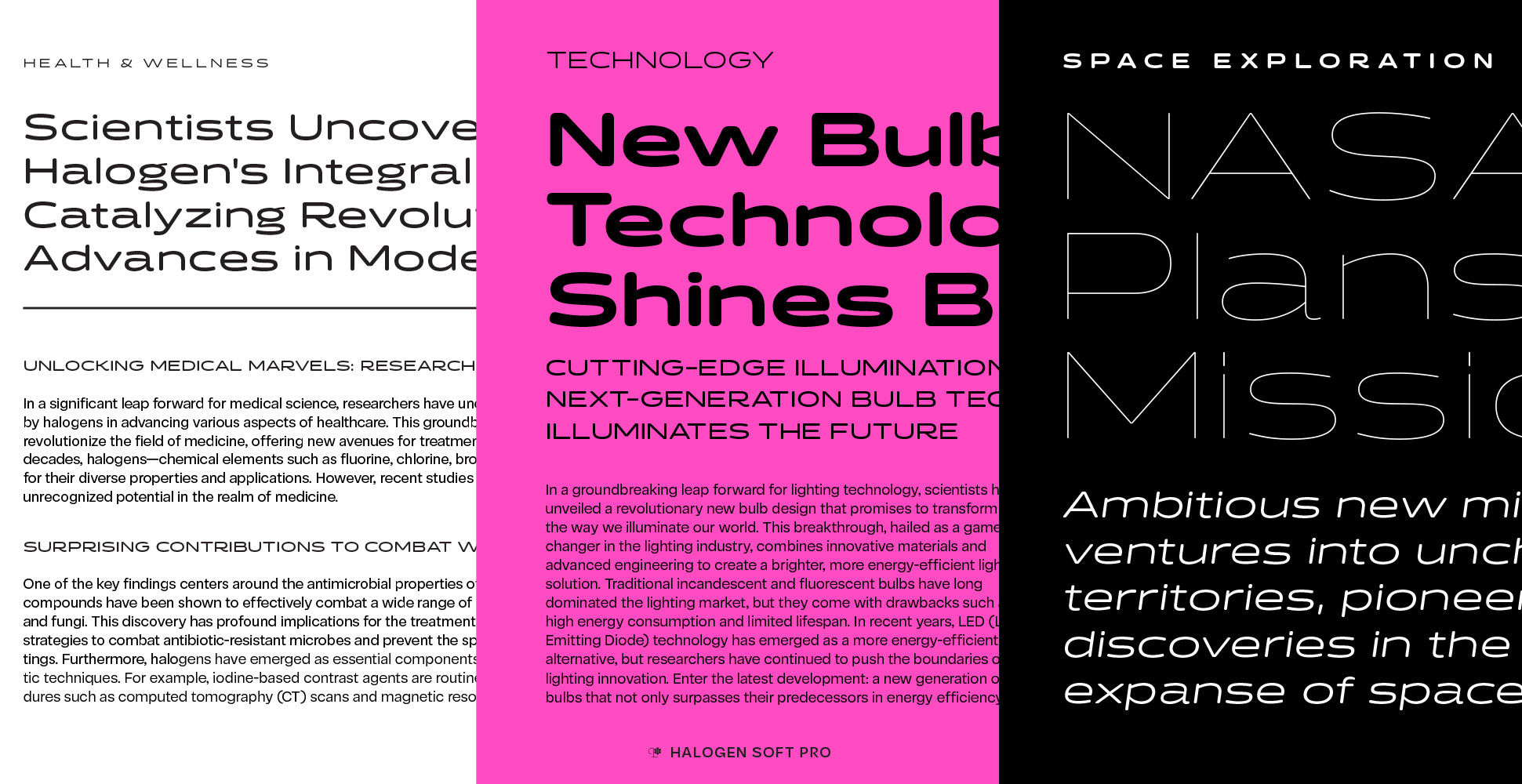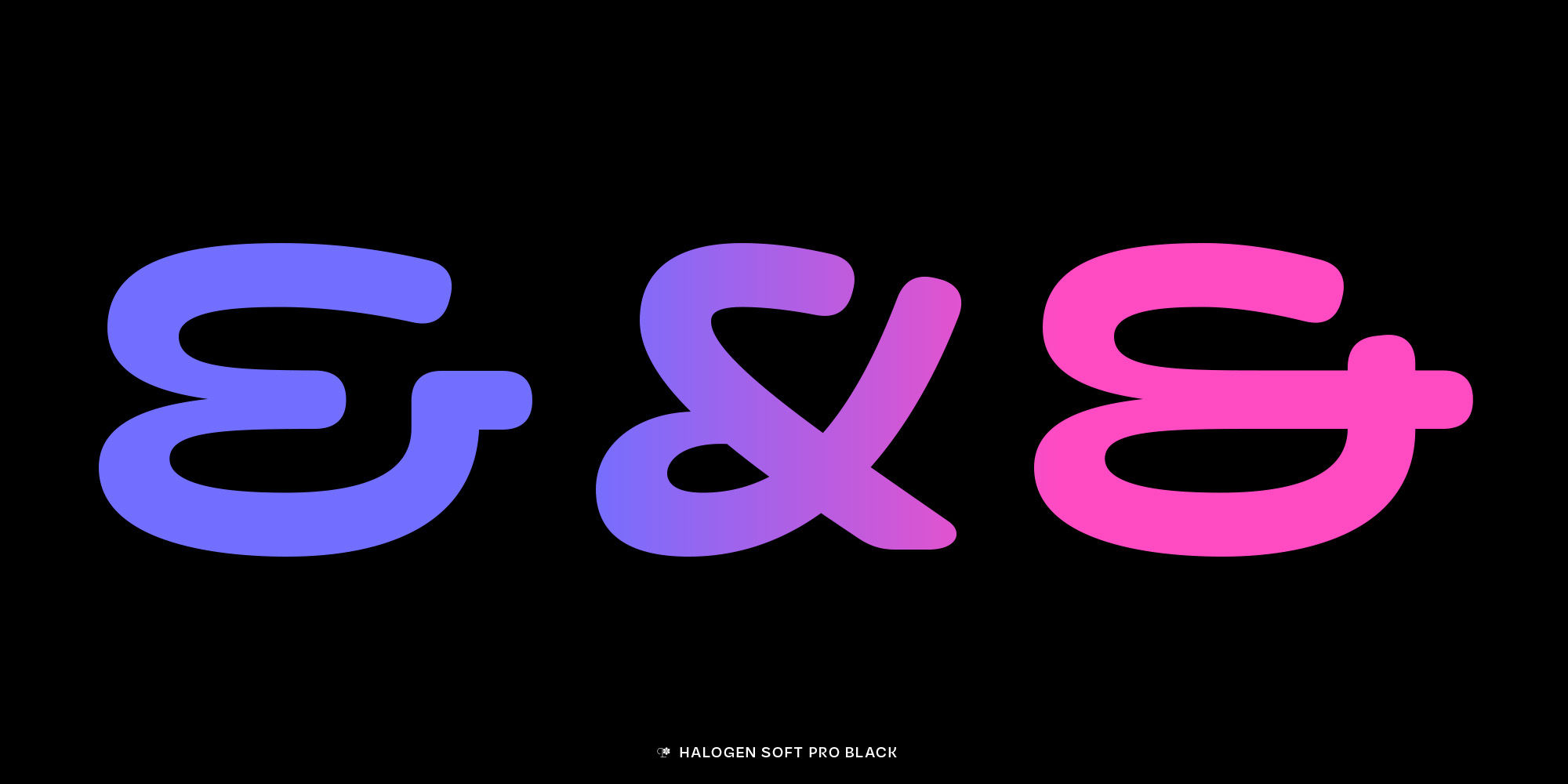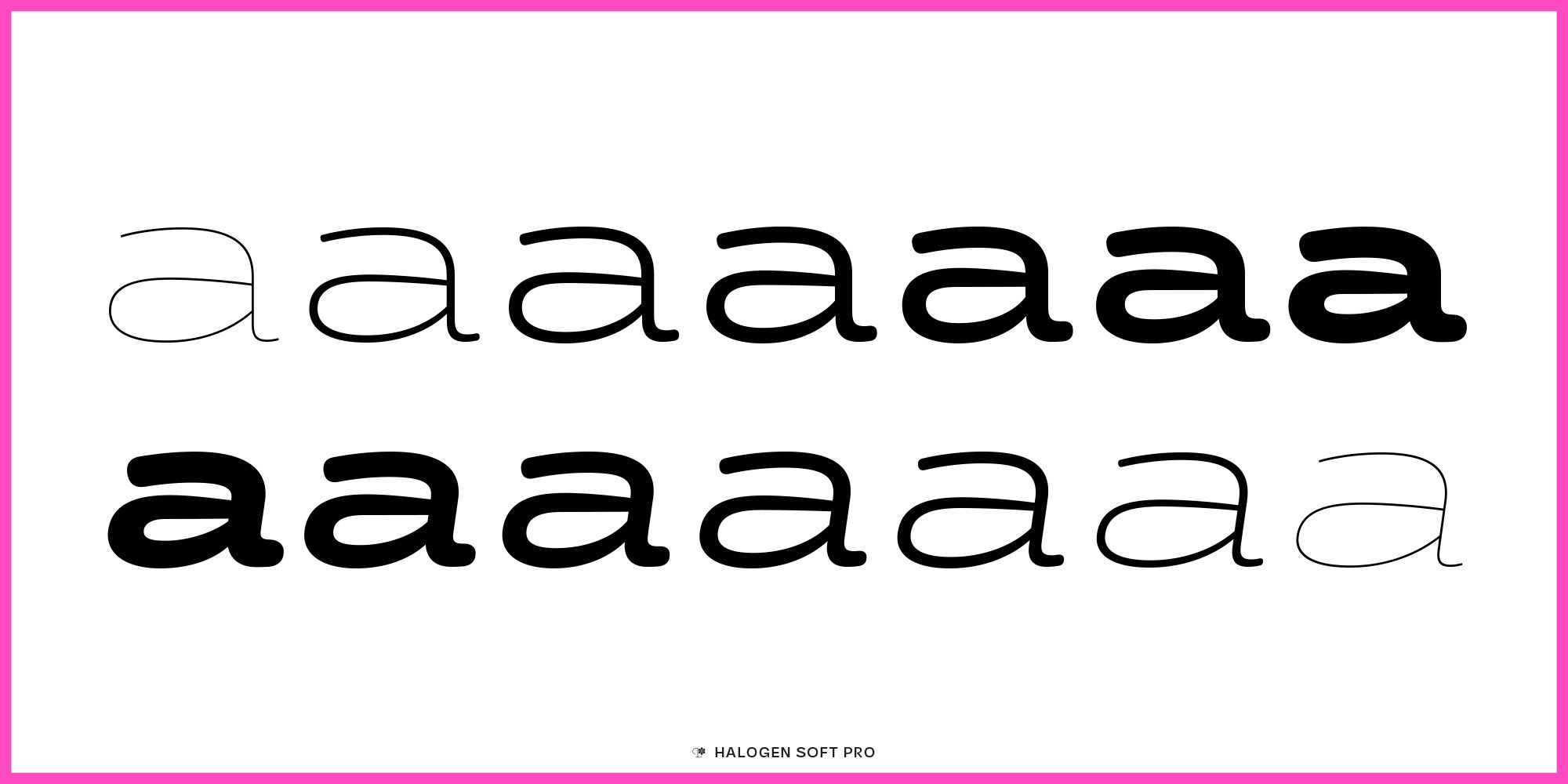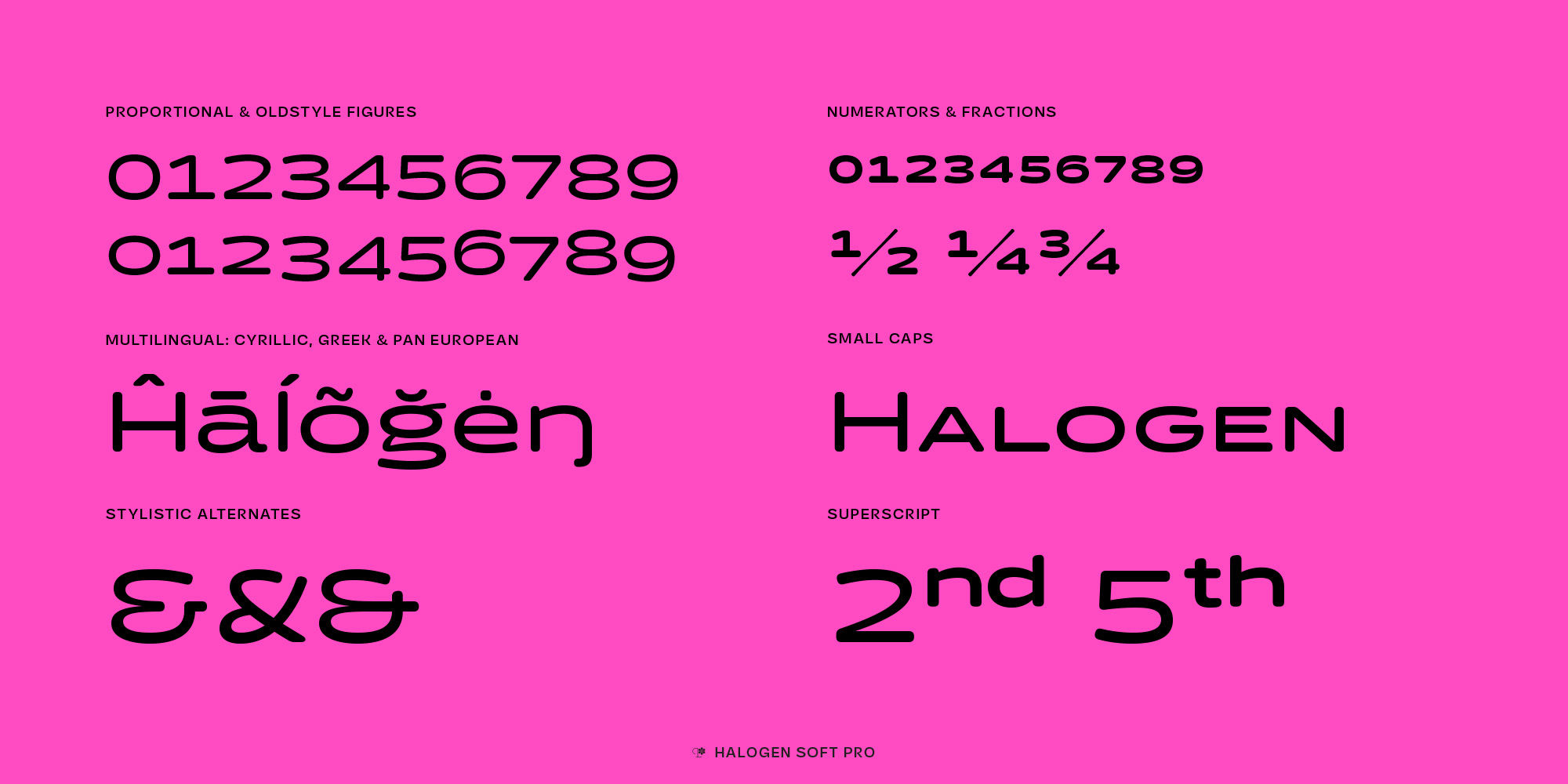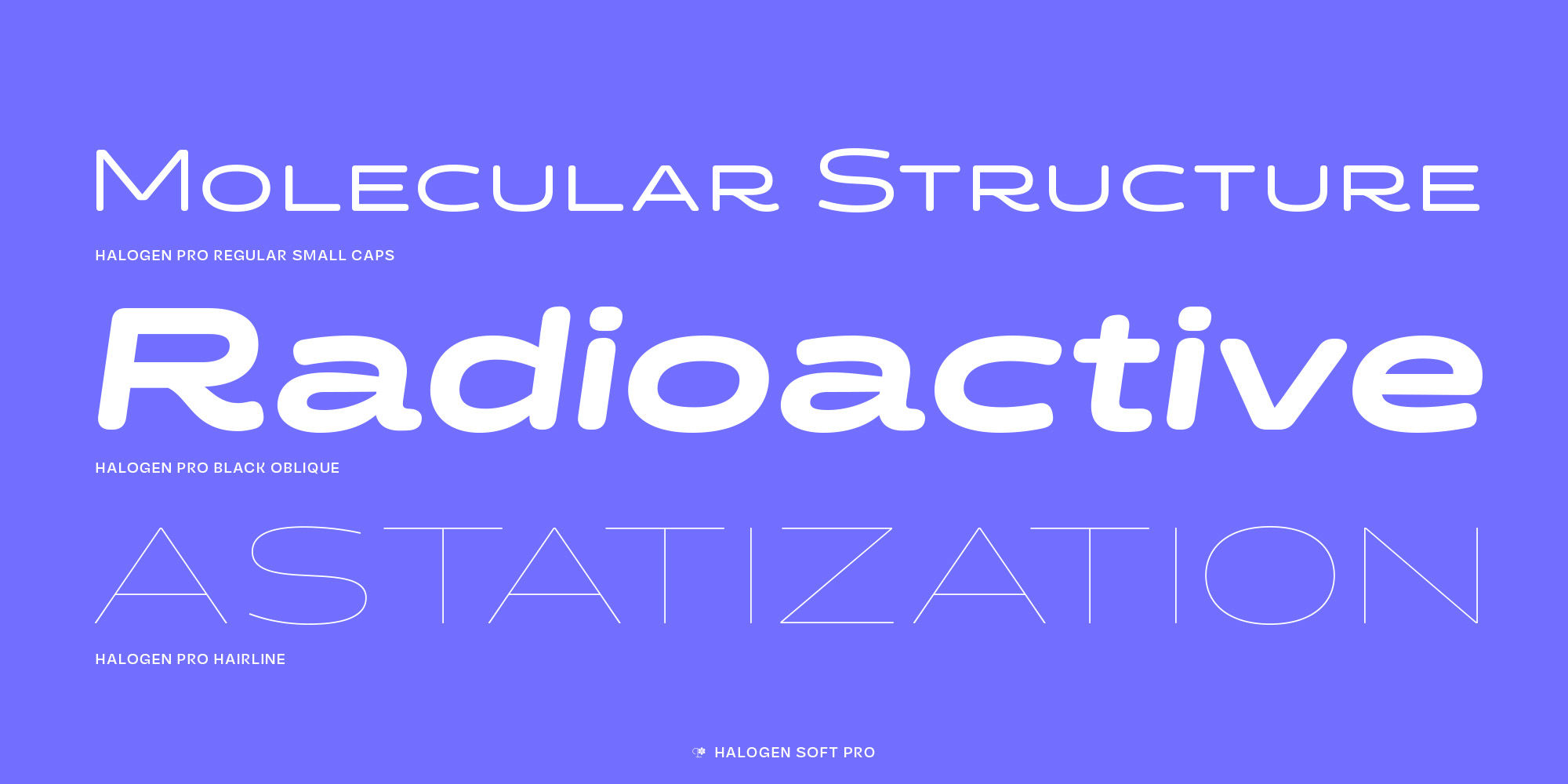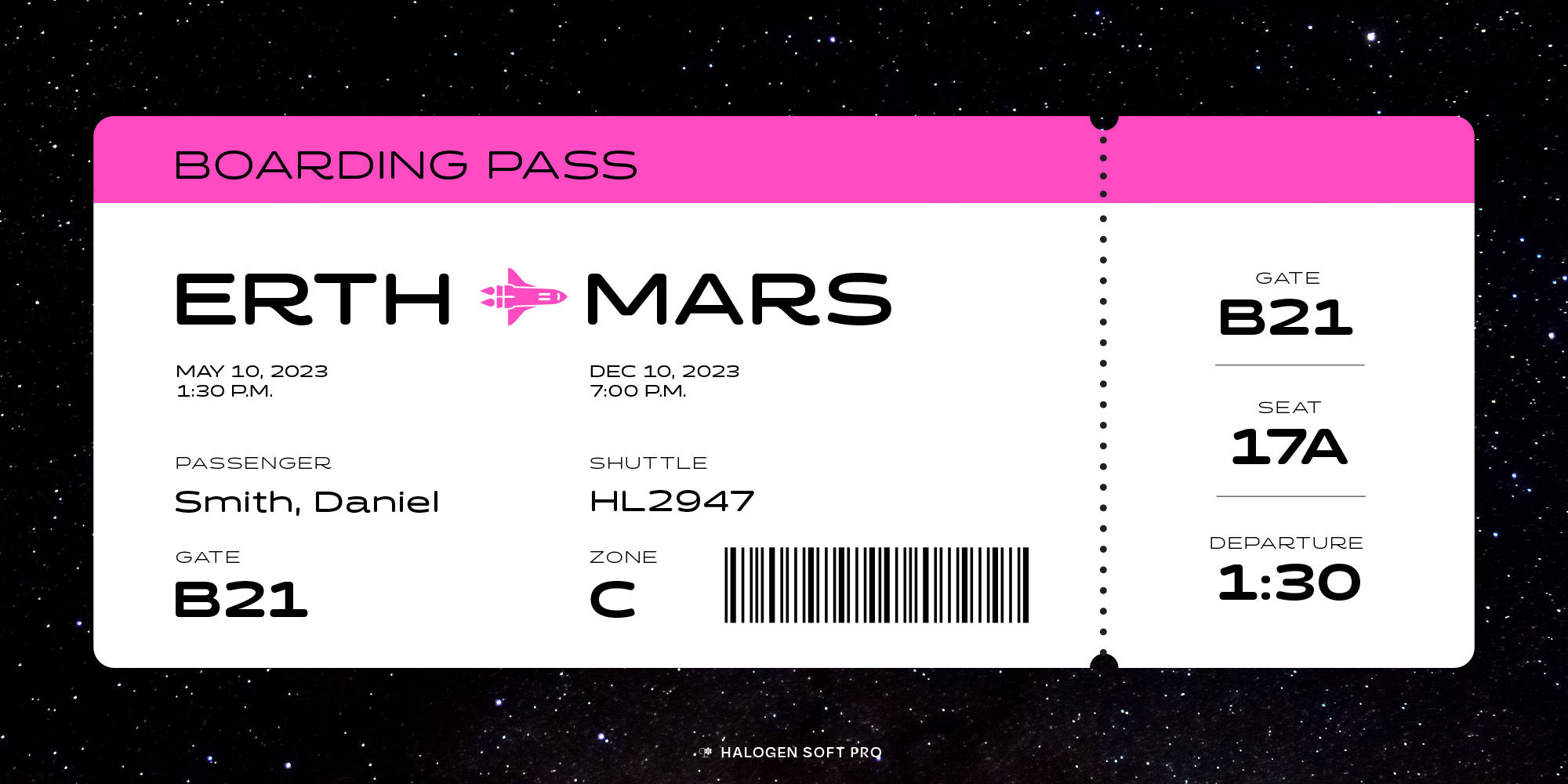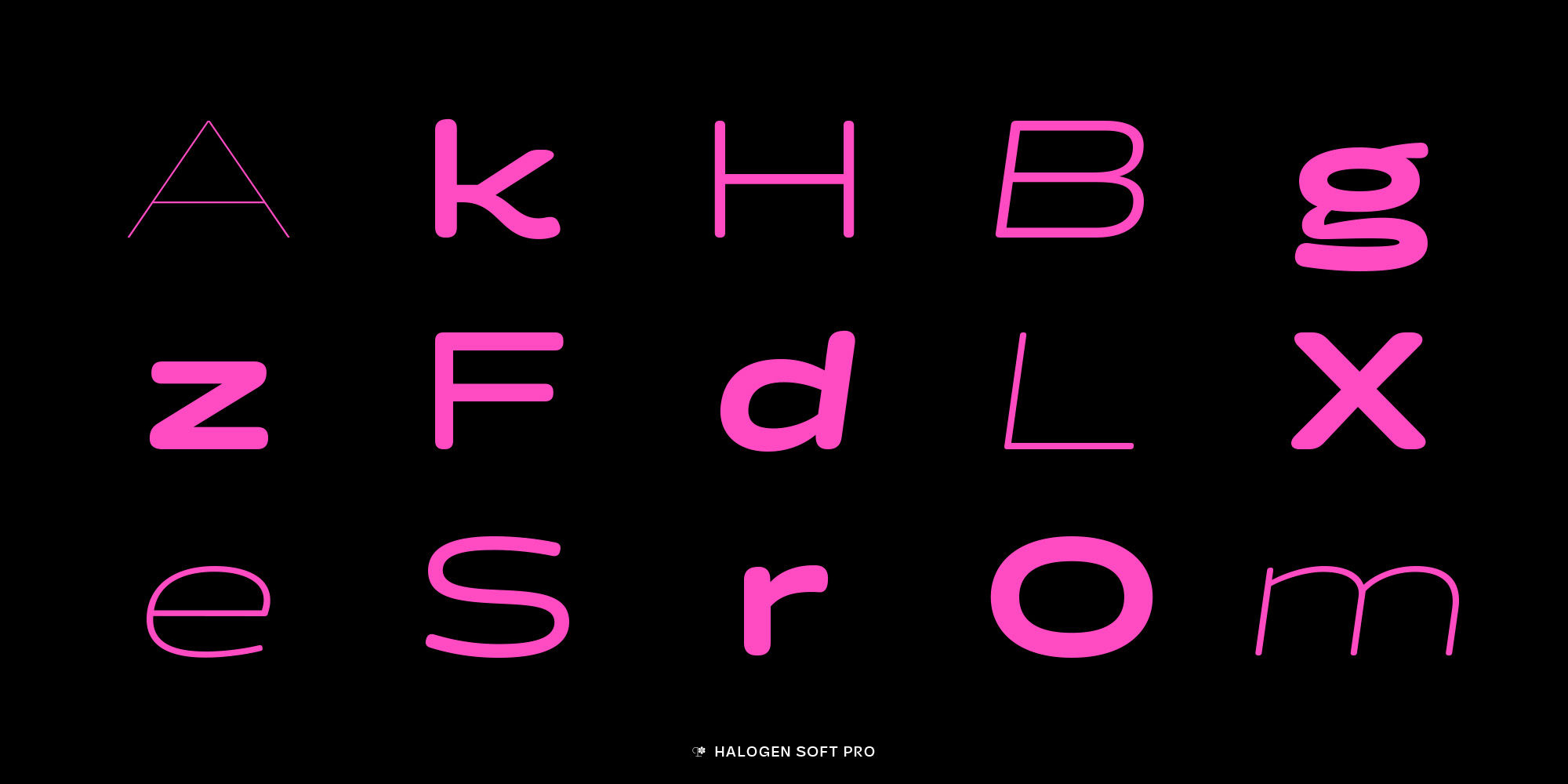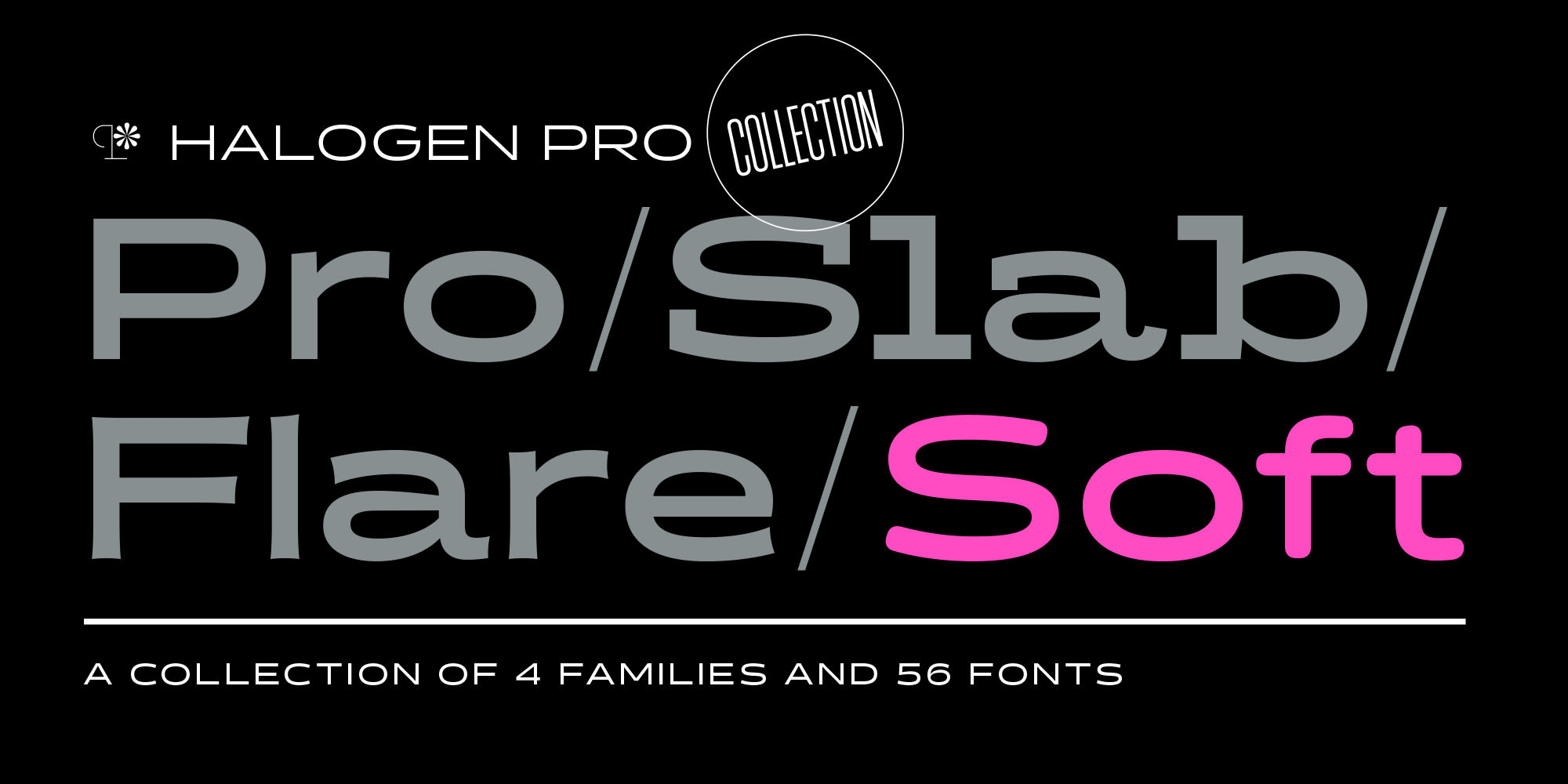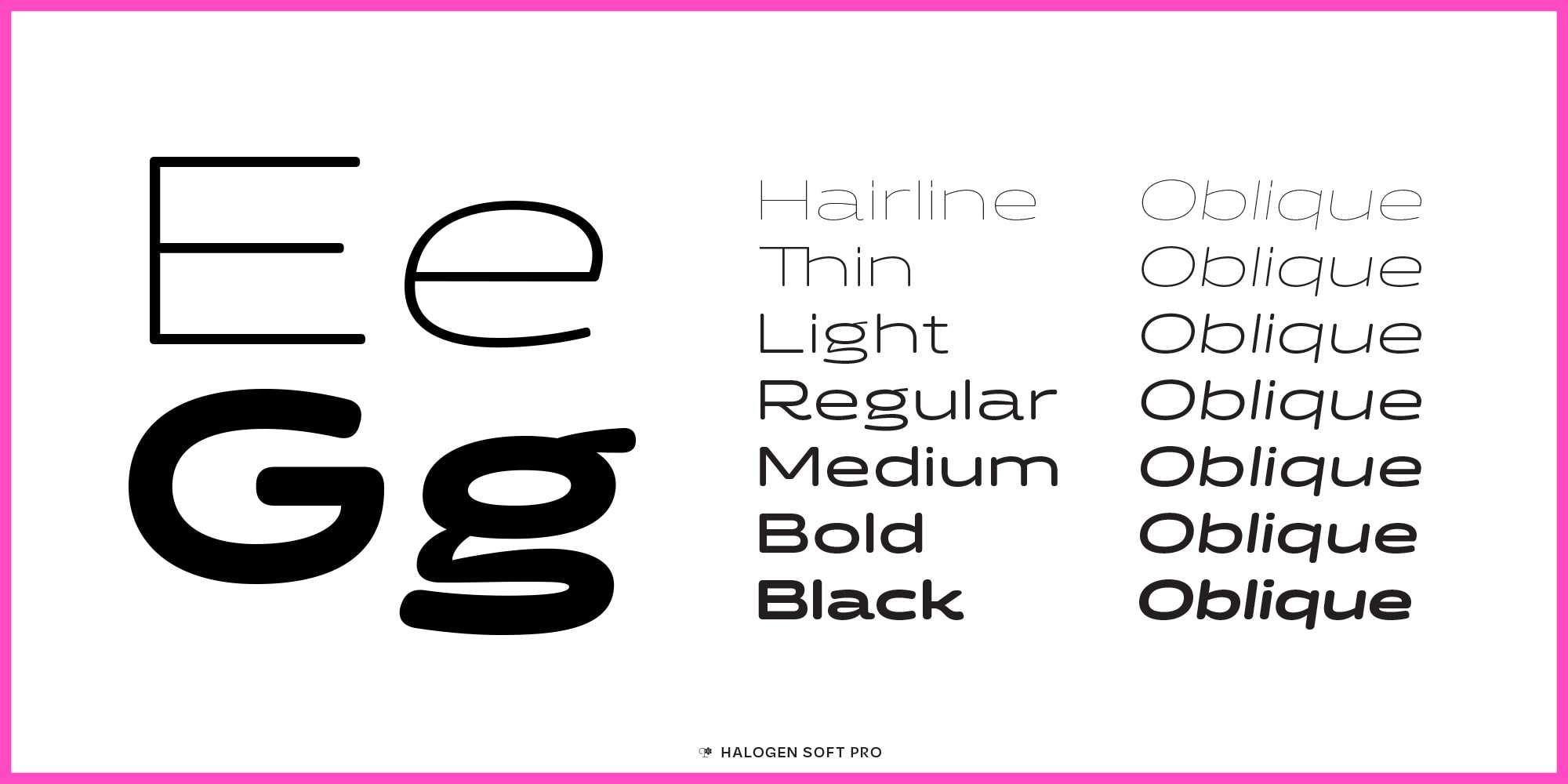
Halogen Soft Pro
Remastered for 2024. The original Halogen, which debuted in 2011, marked a significant departure from conventional extended sans-serif typefaces. It eschewed mere utilitarianism in favor of exuding style and swagger, while still offering a comprehensive character set boasting a generous x-height in lowercase letters and small caps. Upon its release, Halogen garnered acclaim, prompting numerous requests for enhancements and modifications. Responding to this demand, Flare and Slab variants were introduced to the Halogen family.
Now, with the unveiling of Halogen Pro, this iconic typeface transcends its predecessors. Not only does it expand upon the existing character set, but it also broadens script support with the inclusion of Cyrillic and Greek alphabets. Additionally, Halogen Pro introduces a brand-new variant: Halogen Soft. This fresh addition to the collection maintains the distinctive features of its predecessors while offering a softer, more refined aesthetic.
Each typeface in the Halogen Pro collection boasts an array of features, including lowercase and small caps, multiple alternate sets, and an extensive selection of numerals. Furthermore, meticulous attention to detail ensures a seamless blend of functionality and visual appeal, making Halogen Pro the quintessential choice for designers seeking versatility and sophistication in their typographic endeavors.